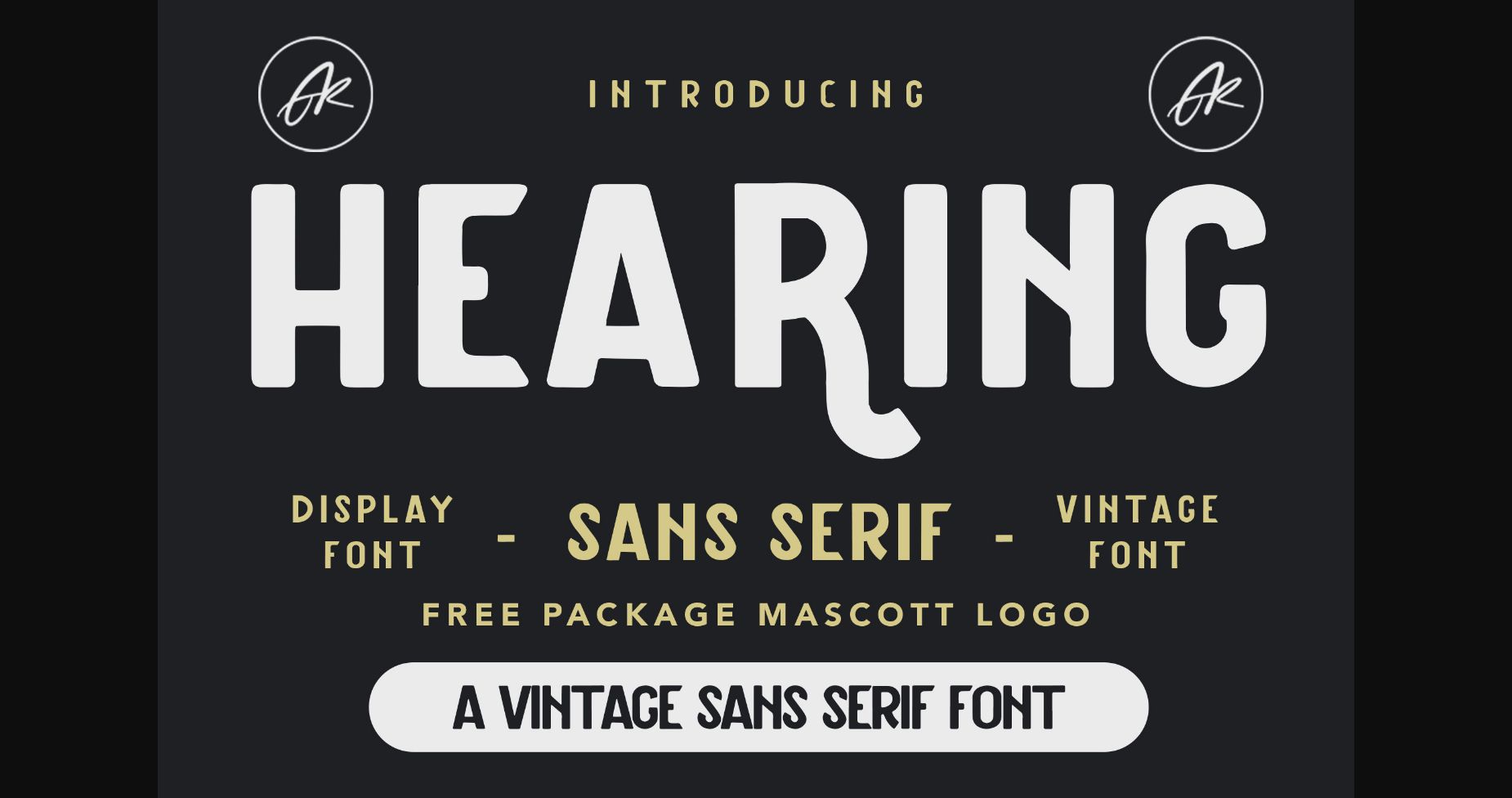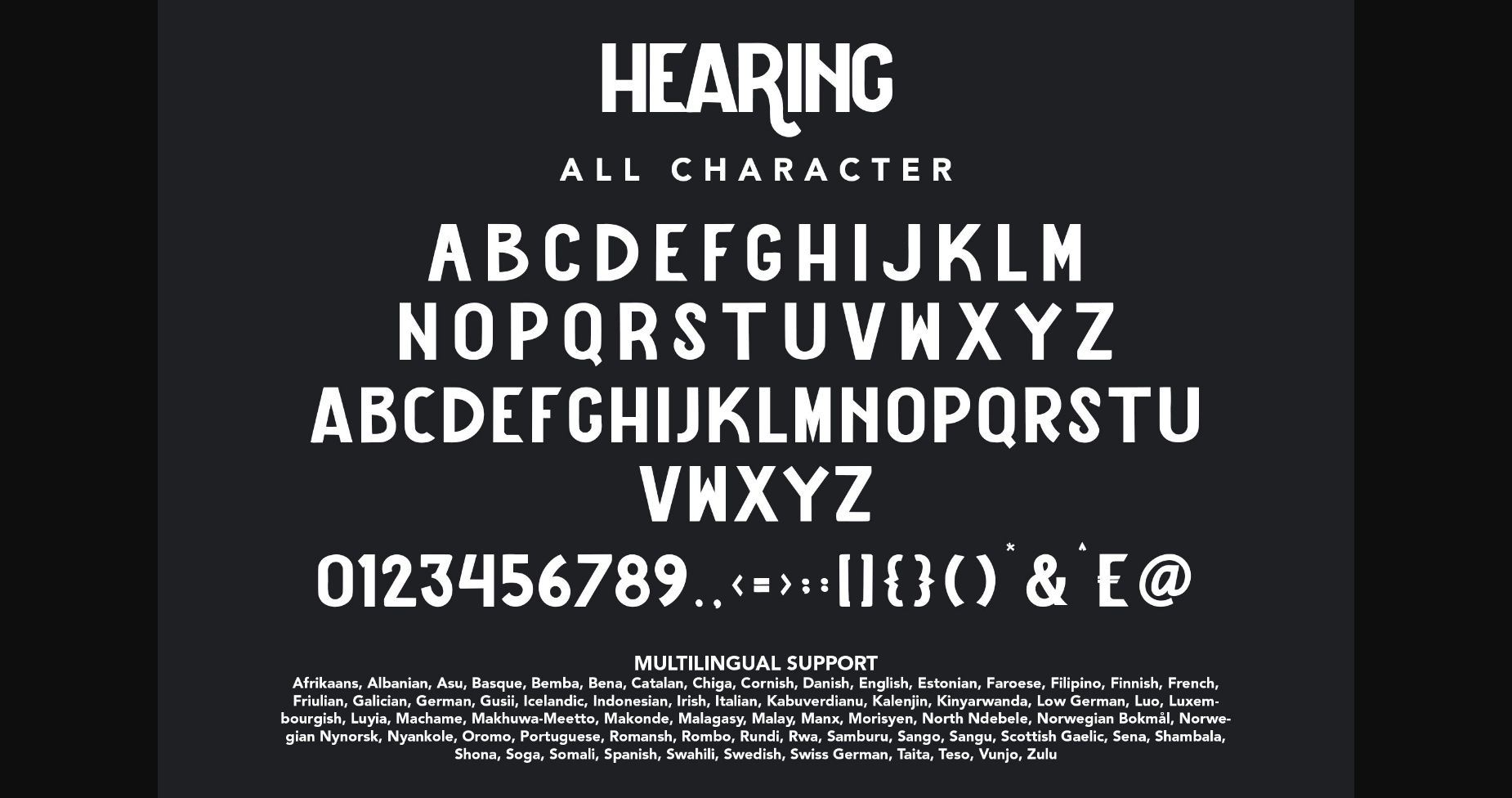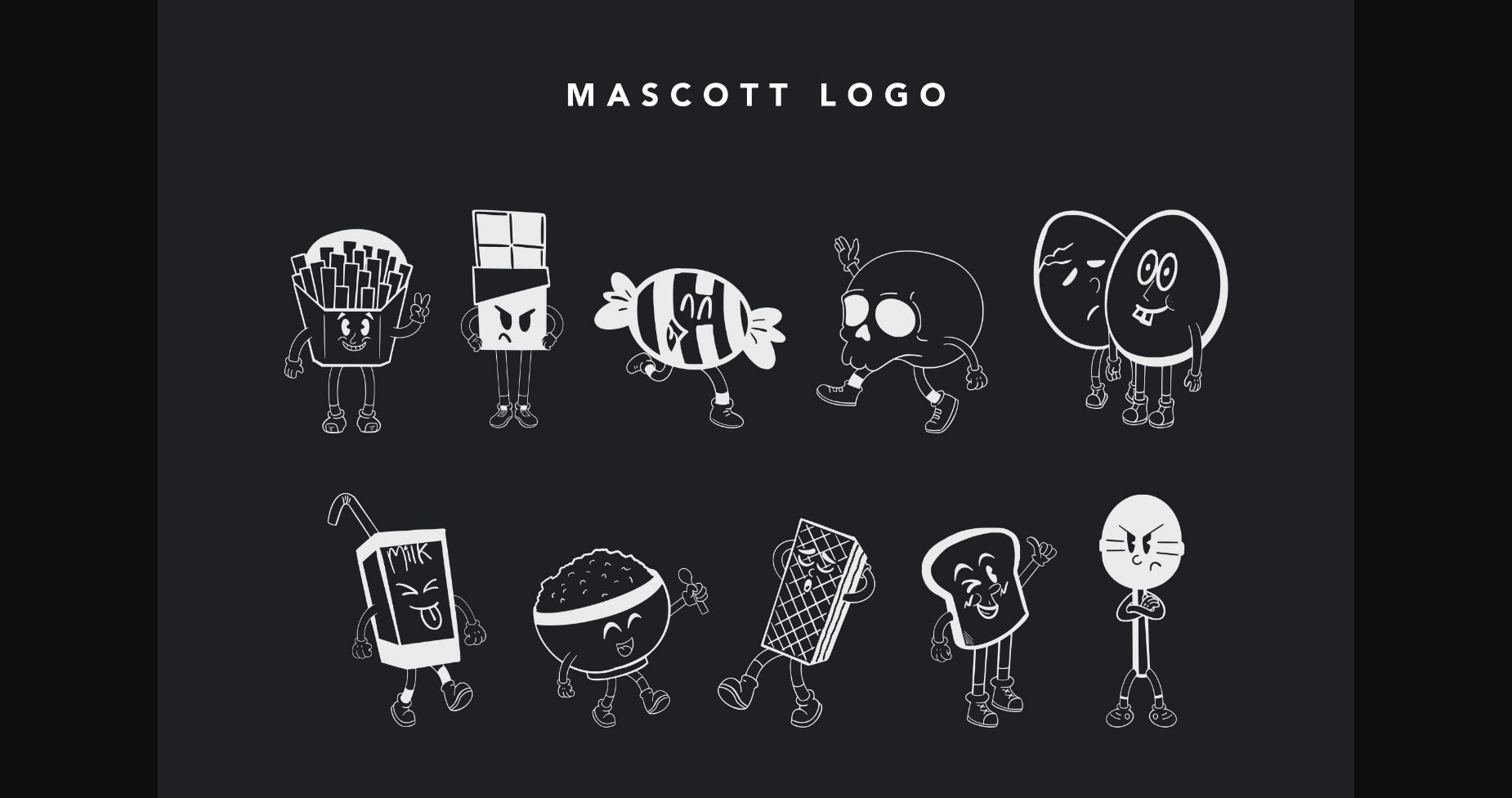
About Hearing Font
Hearing is a vintage-looking sans serif font with distinctive characters and a nice, modern vibe. Solemn and bold, this font is perfect for headlines, titles, magazines, book covers, posters, movies, and many more creative projects!